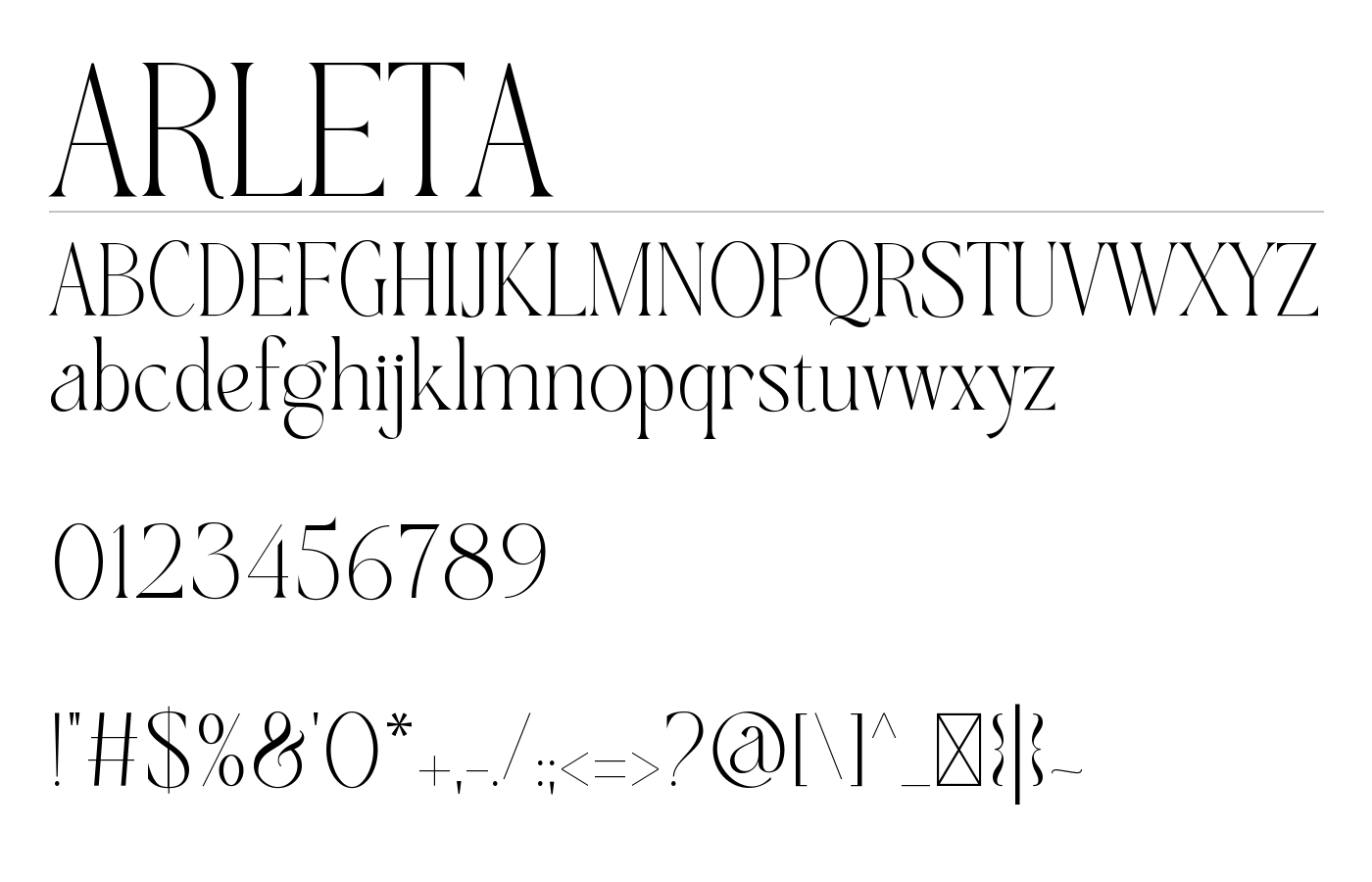
Arleta is an elegant serif font characterized by its tall, slender letterforms and high contrast between thick and thin strokes, giving it a refined and sophisticated feel. Its delicate, slightly condensed structure with graceful serifs makes it ideal for luxury branding, editorial headlines, and fashion-related designs where a touch of classic elegance is desired. This font conveys a modern yet timeless personality, perfect for projects that aim to communicate style and exclusivity.
ARLETA Font
About ARLETA Font
| Designer | Fatoni nurman |